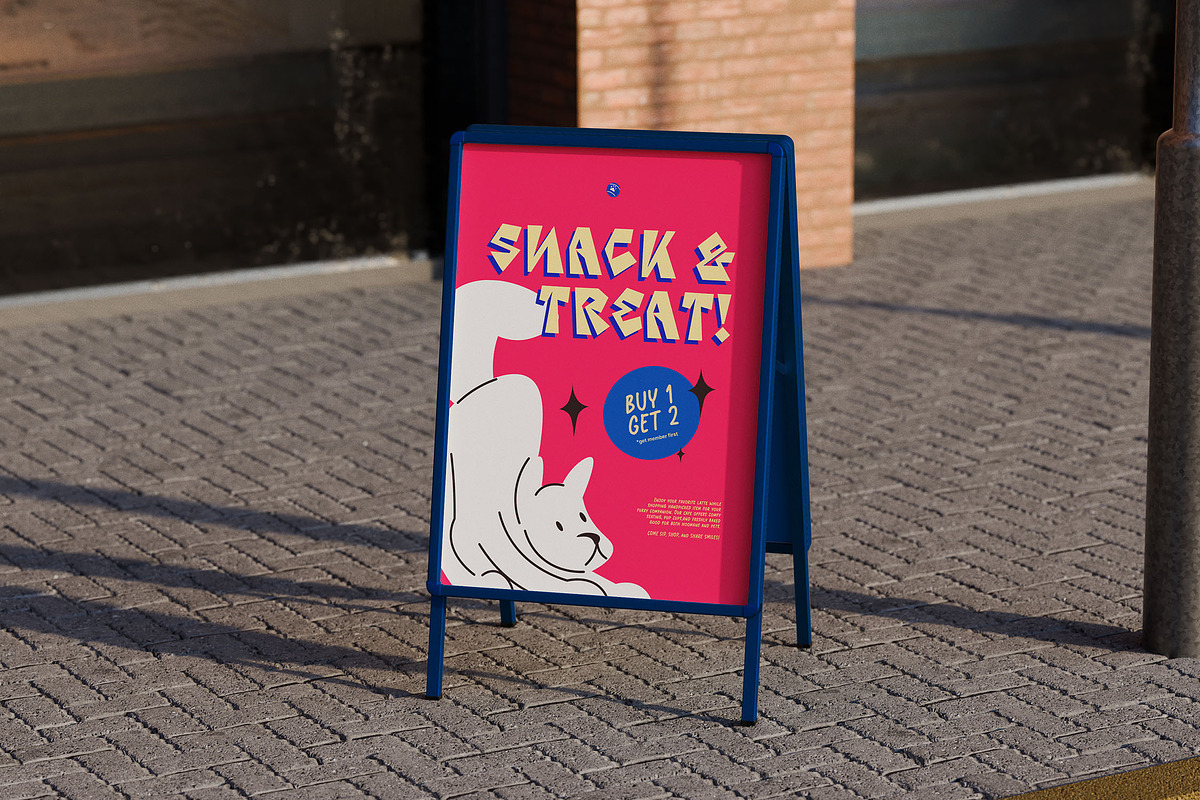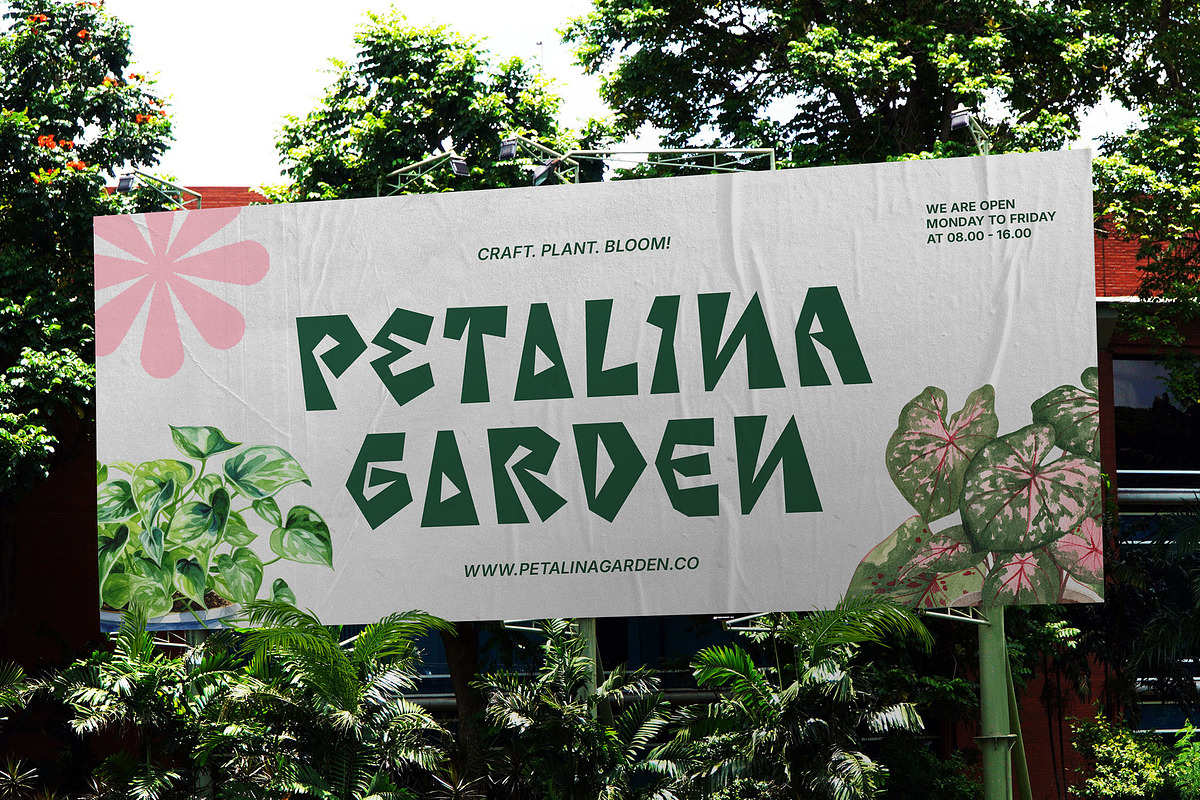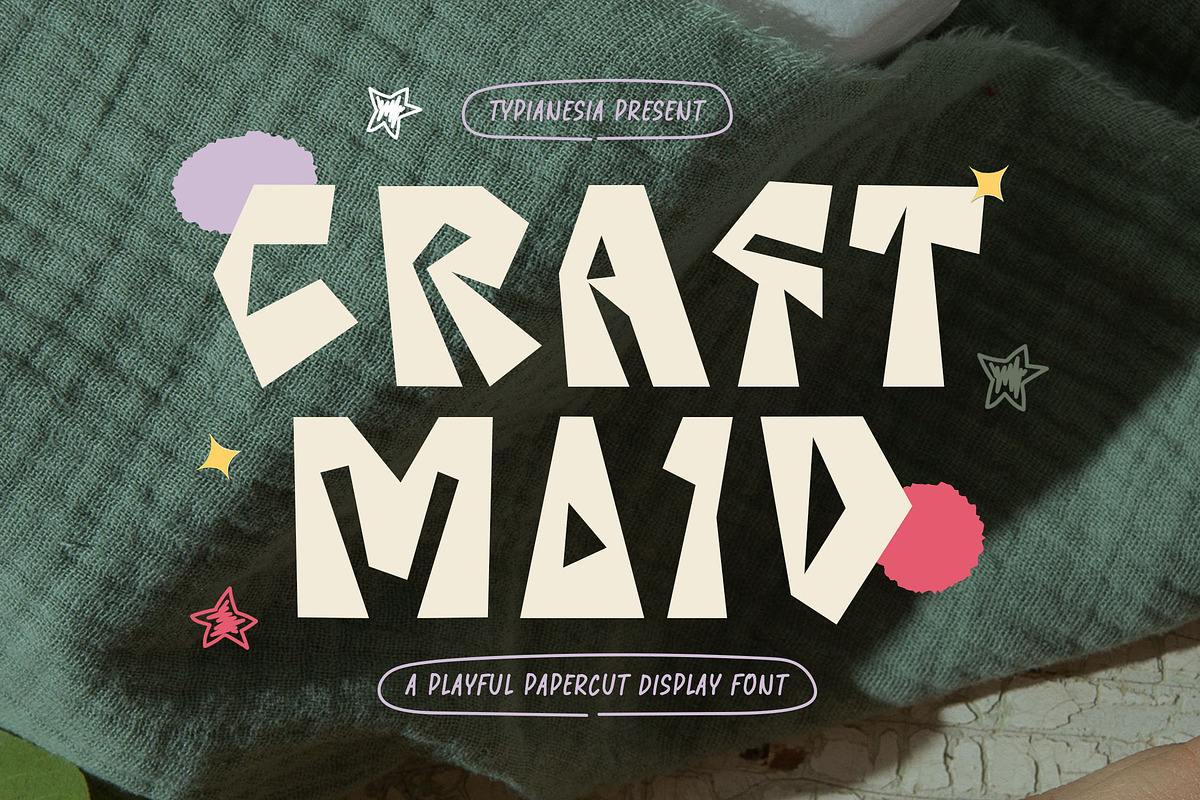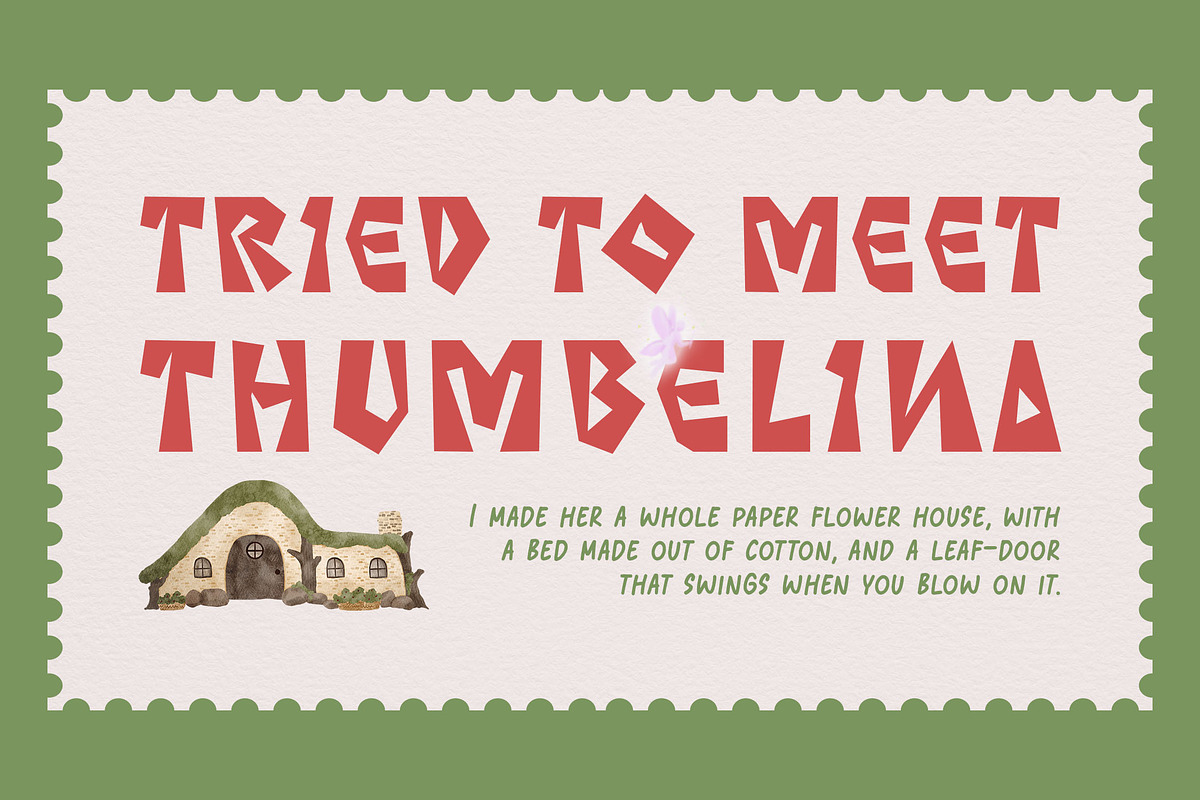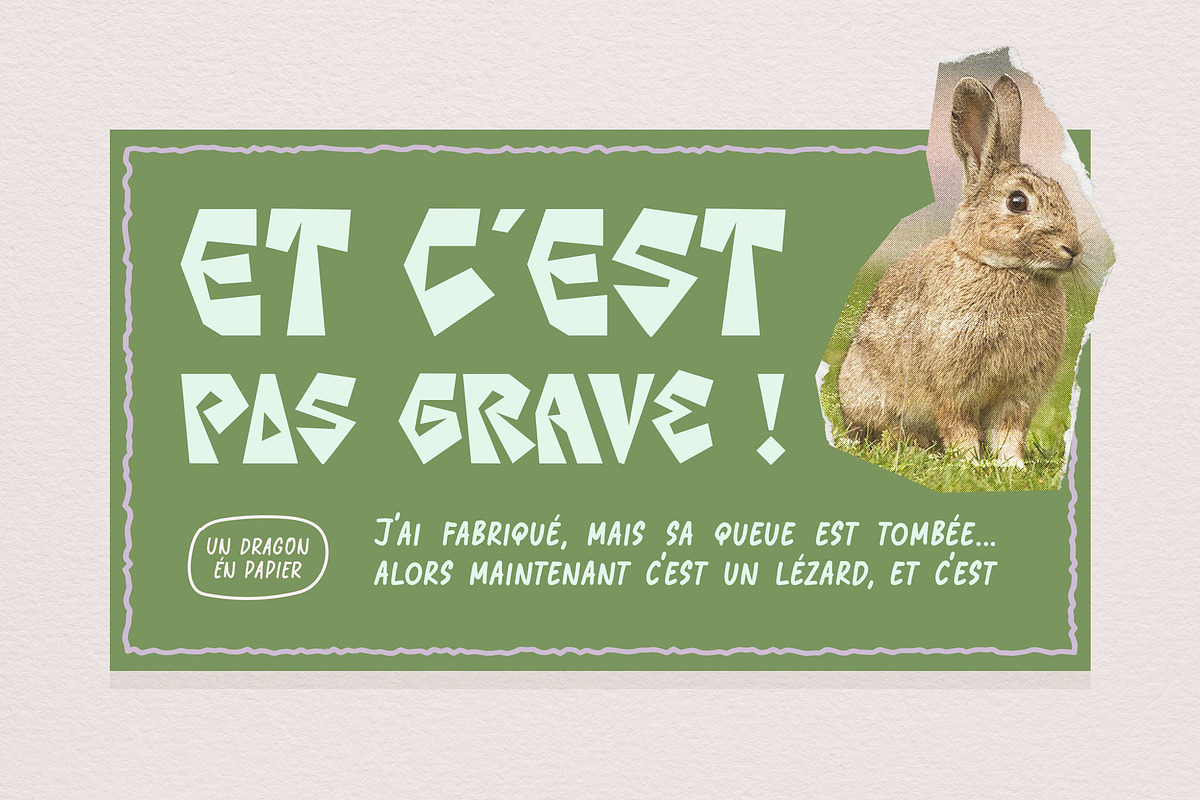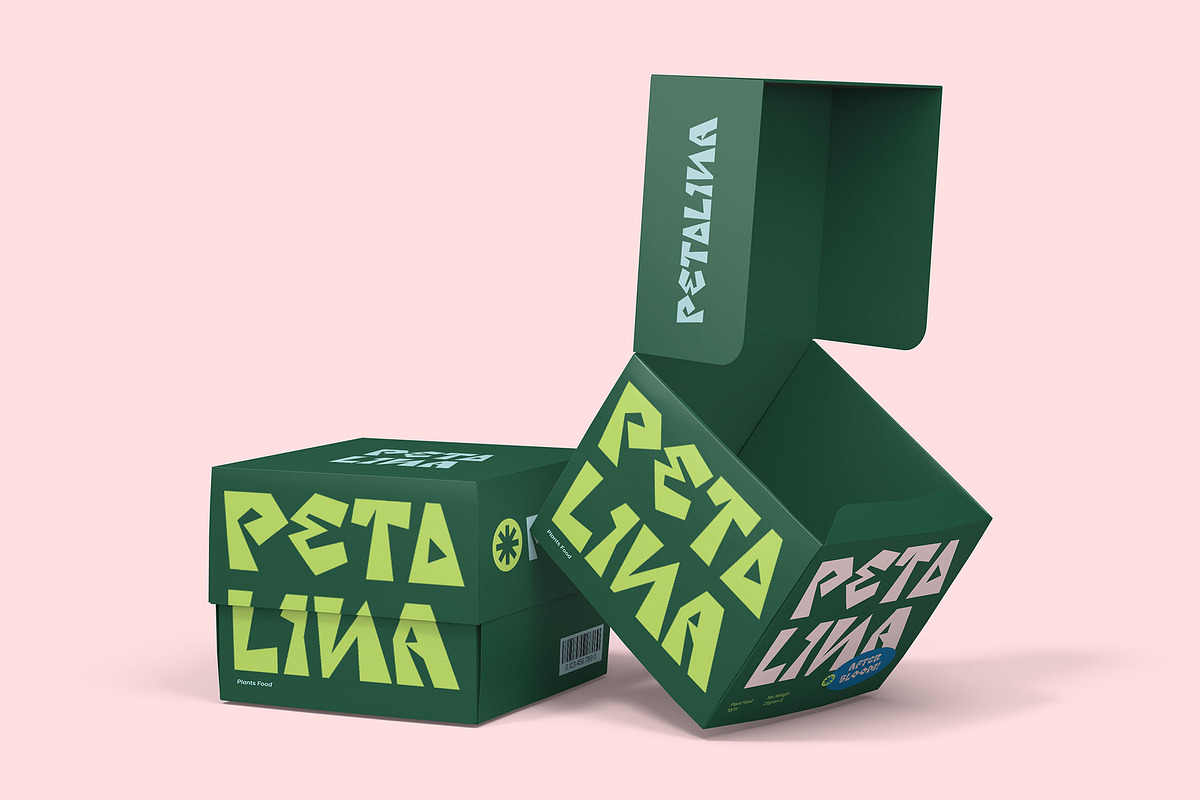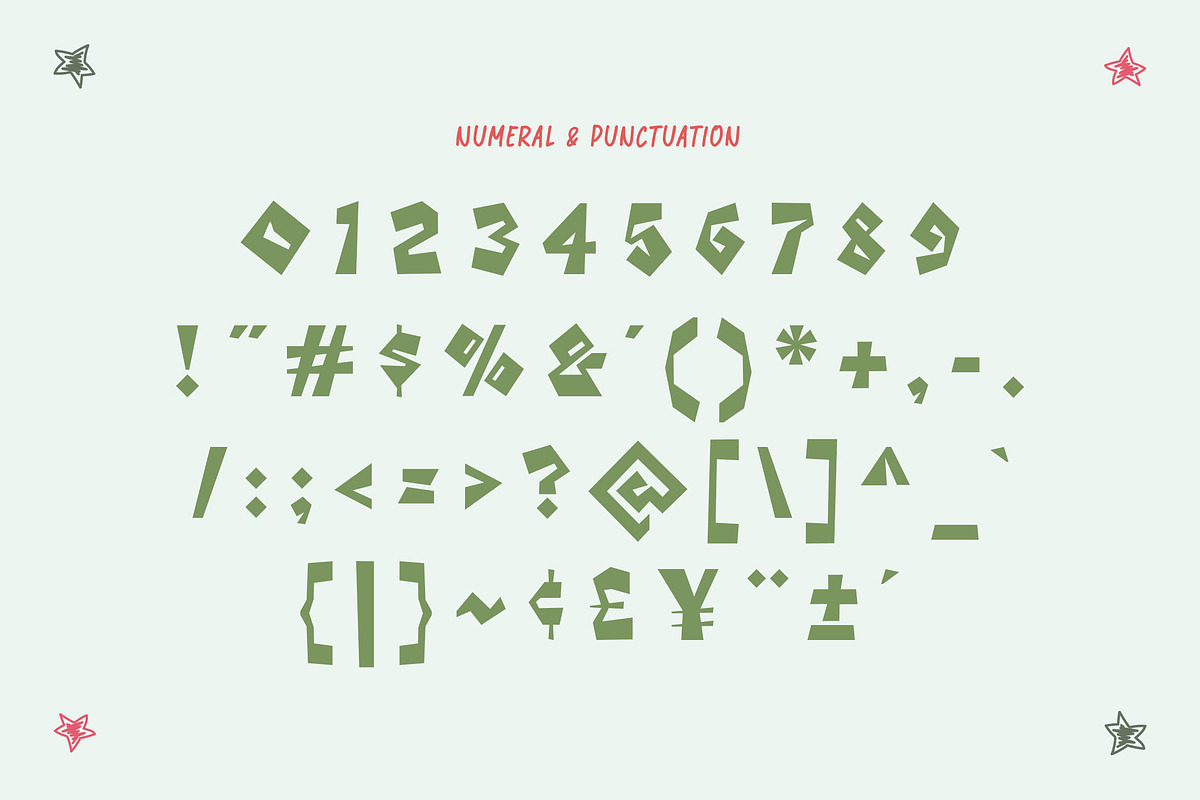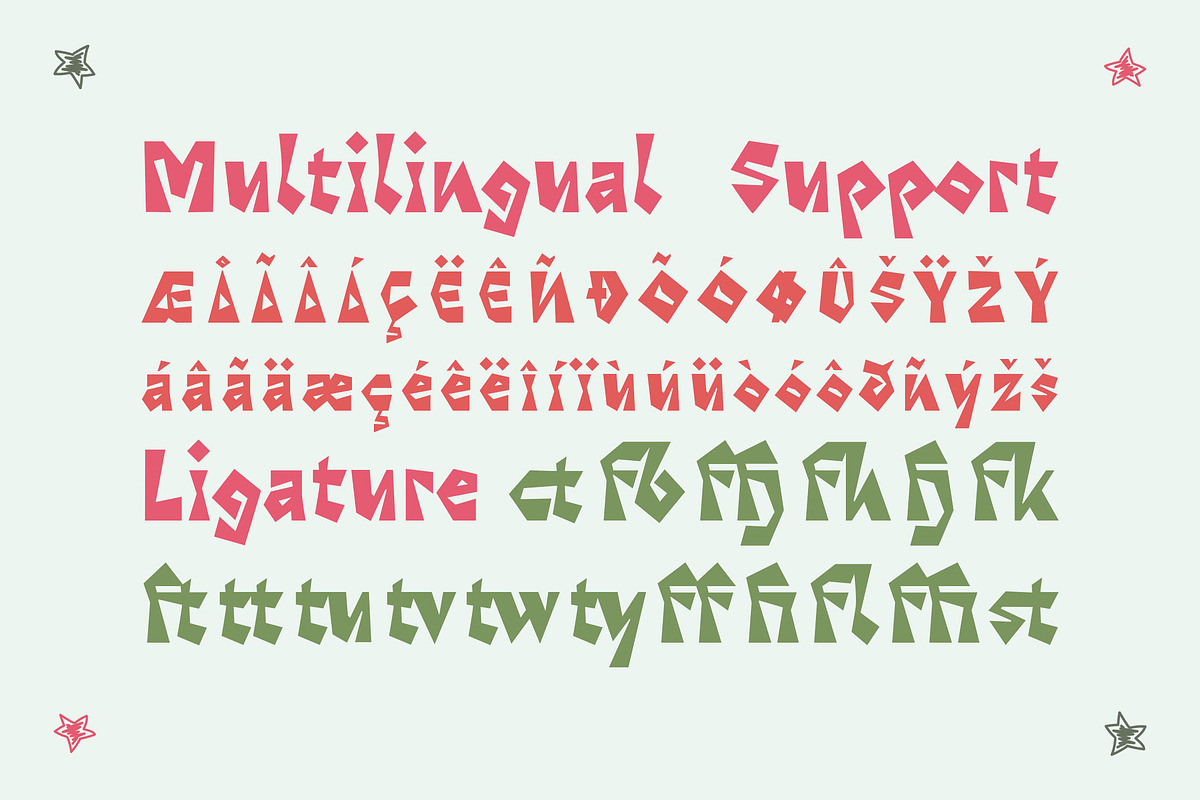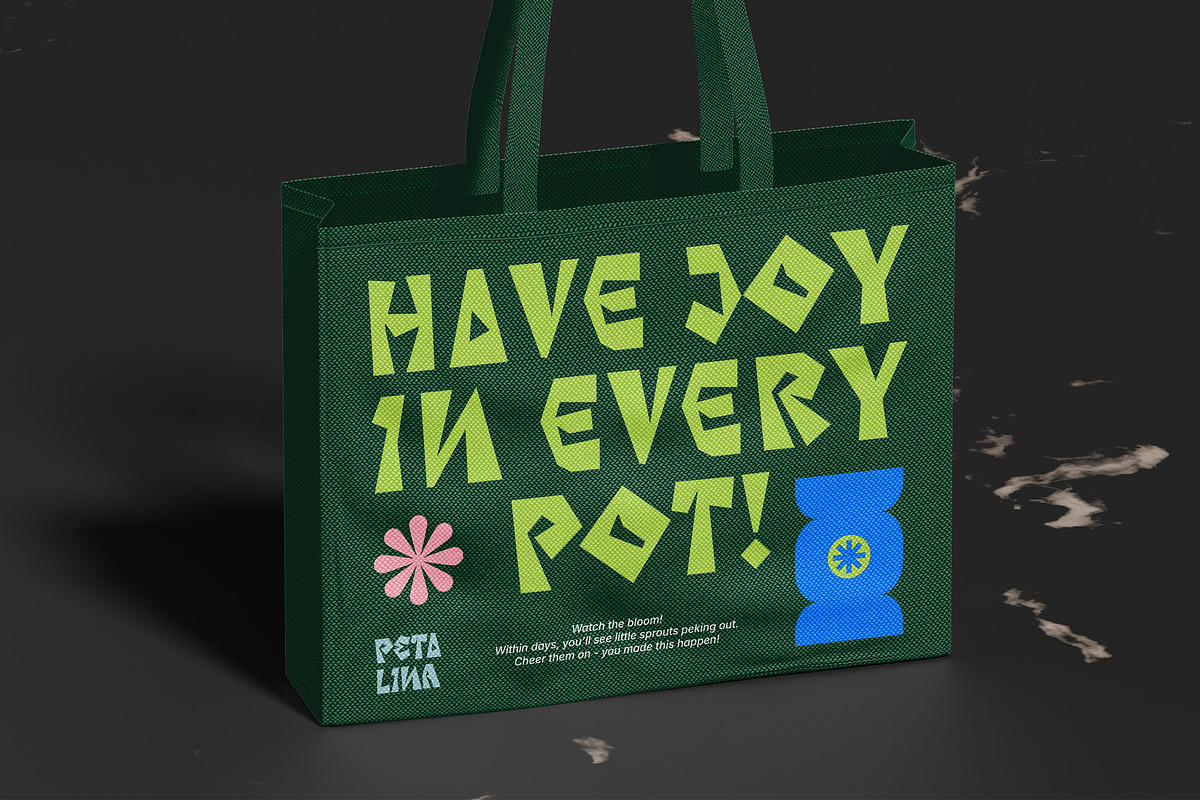
Craft Maid - Playful Papercut Font
Craft Maid - Playful Papercut Display Typeface - Handcraft Display Font & Whimsical Creative Branding Projects
Craft Maid is a playful papercut display font designed to infuse your projects with a unique, hand-crafted charm. This bold and whimsical typeface features a delightful, slightly irregular character, giving it an authentic organic feel. Perfect for children's books, crafting projects, nature-inspired branding, playful headlines, poster, logo, game design, packaging, cartoon project and any design seeking a quirky, friendly, and creative display font that stands out with its distinctive, charming imperfections.